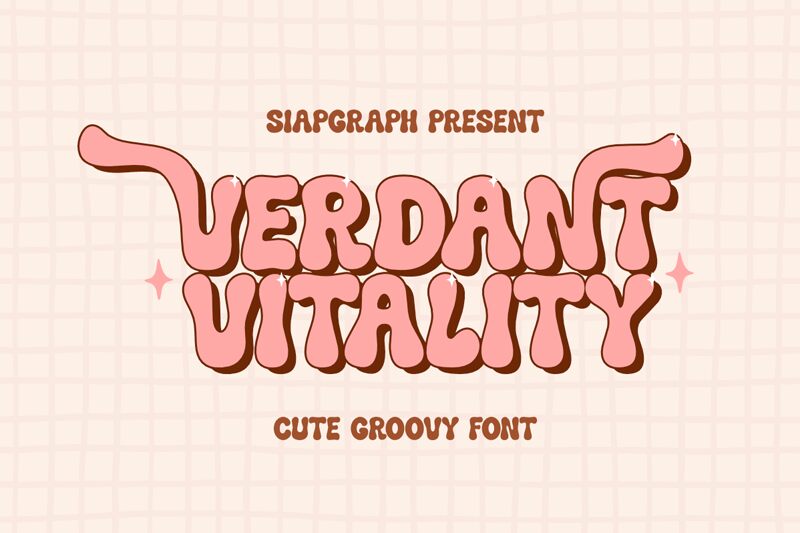
Verdant Vitality font by Siapgraph is a groovy and vibrant font with a playful energy that captures the spirit of retro designs. Featuring vintage-inspired whimsical shapes, this lively font expresses bold originality in each letterform. While not overpowering, Verdant Vitality will certainly have an eye-catching effect in the projects where it is used.
Its bold nature makes Verdant Vitality ideal for headlines, especially in posters, magazines, social media posts, and books. Other potential use cases include branding and packaging projects that are inviting and have a friendly vibe such as restaurants, ice cream brands, and more.